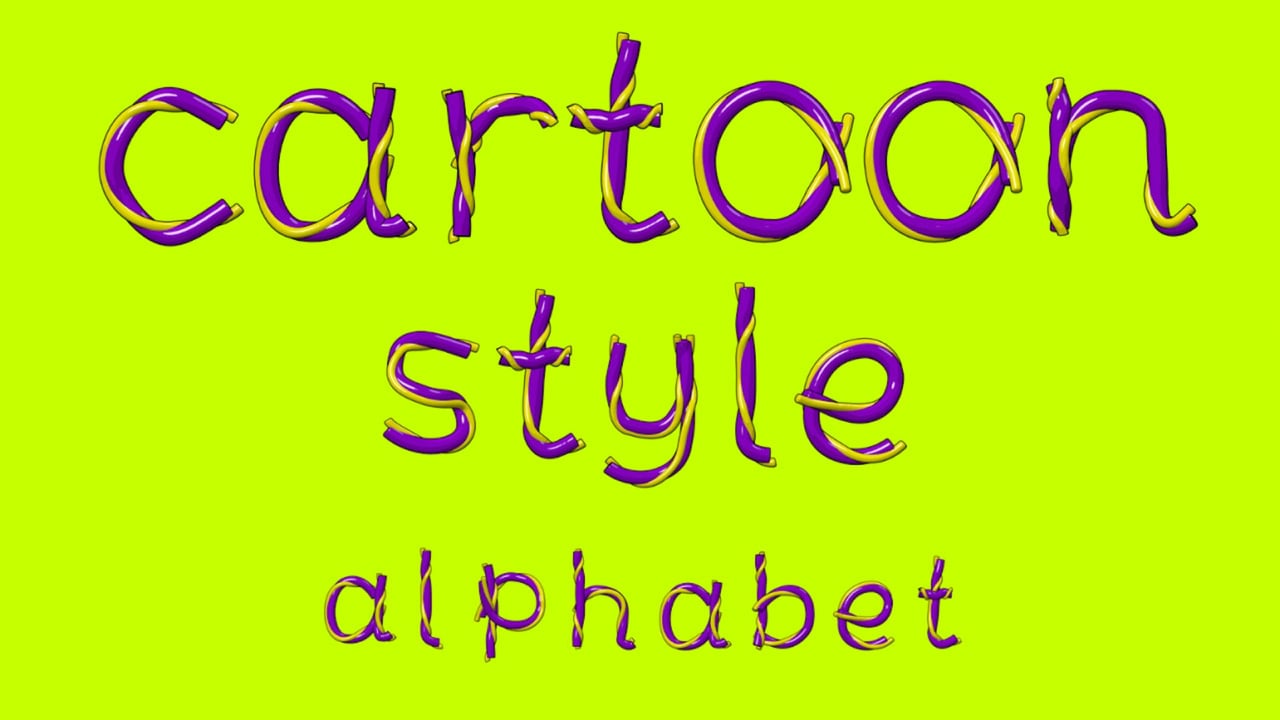
Pack Of 53 Purple-Yellow Jelly Typefaces On Alpha
Transform your projects with 53 bouncy, cartoon-style animated letters in vibrant purple-yellow jelly design.
This motion graphics video pack delivers a complete animated typeface collection featuring letters, numbers, and symbols rendered with a fun jelly aesthetic. Each clip comes with a transparent alpha channel for seamless compositing into any project.
Perfect for children's content, gaming interfaces, playful branding, or any project needing an energetic, cartoon-inspired text treatment. The purple and yellow color scheme adds a bright, cheerful vibe that captures attention instantly.